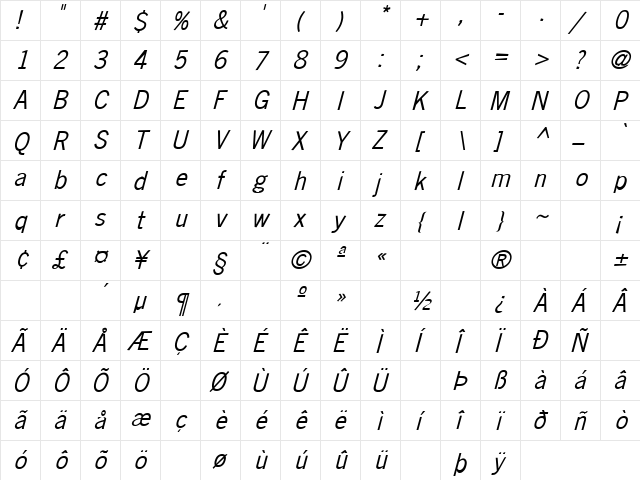
Breakdown 8 Italic Font Preview
Breakdown 8 Italic
Breakdown 8 Italic Font Details
Design Context for Breakdown 8 Typeface
Breakdown 8 is a composed and adaptable typeface that performs quietly and consistently across a wide range of design contexts. The dynamic lean of this cut emphasises speed and emphasis in any layout.
Pro Tip: Use Breakdown 8 for emphasis, pull quotes, and subheadings where its slanted energy can add rhythm to the layout.